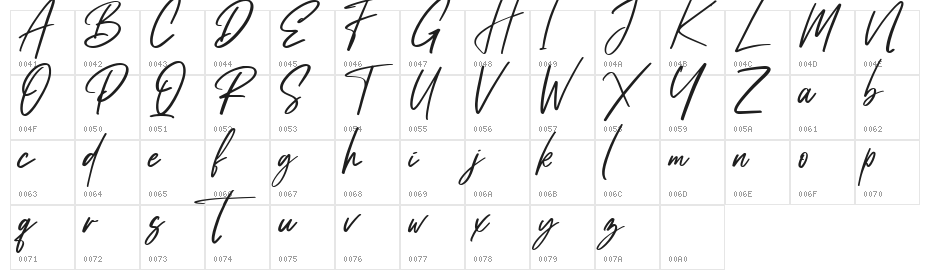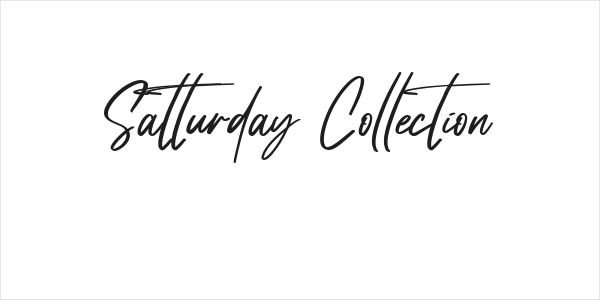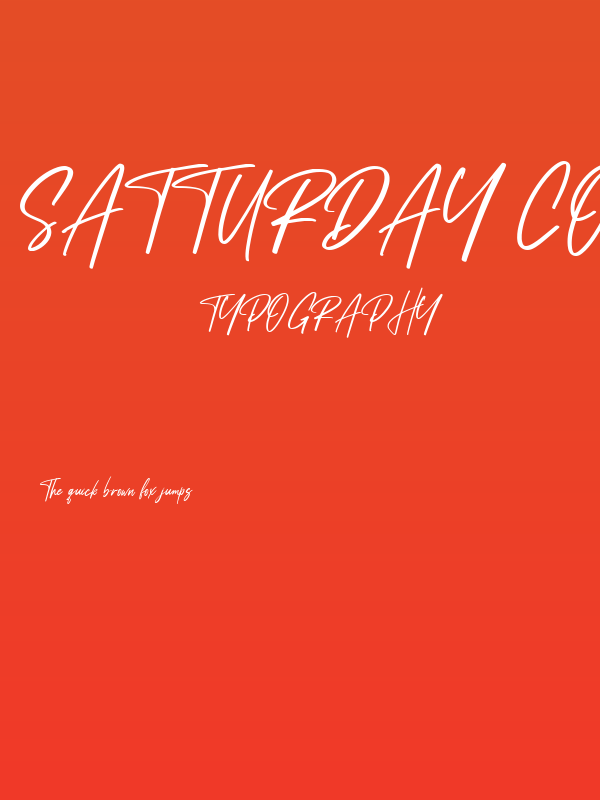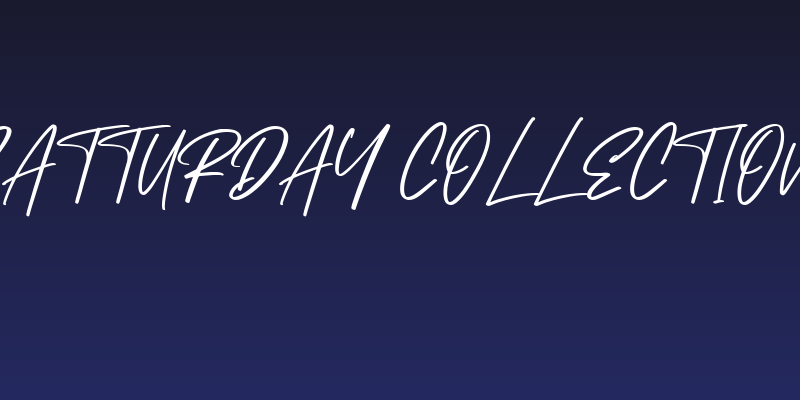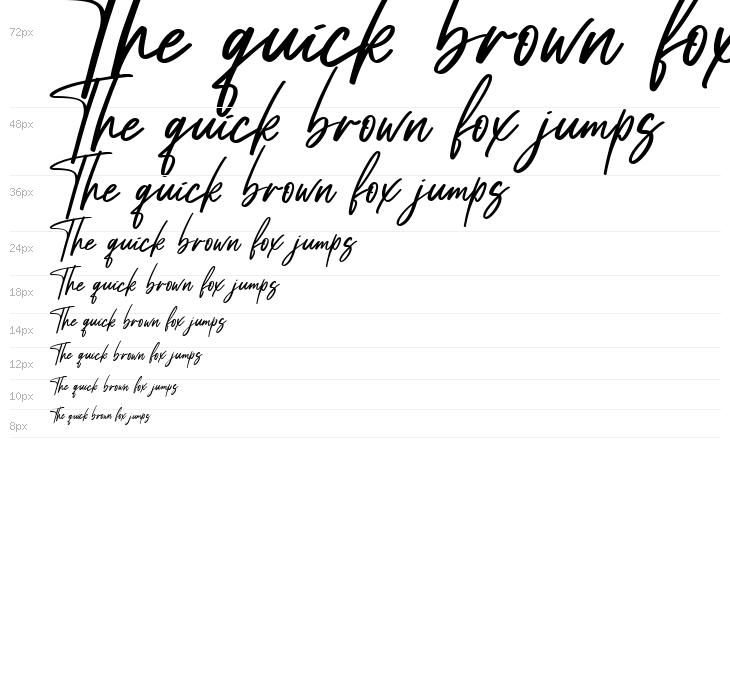
Satturday Collection Font
Satturday Collection Description
This font features a dynamic and expressive handwritten style, characterized by its fluid and cursive letterforms. The uppercase letters are tall and slender, with a slight slant that adds a sense of motion and elegance. The lowercase letters are more compact, maintaining the cursive flow with smooth, connected strokes. The font has a casual yet sophisticated feel, making it versatile for various design applications. The strokes vary in thickness, providing a medium contrast that enhances readability while retaining the artistic flair. Overall, the font exudes a modern and stylish vibe, perfect for creative projects.
| Proposed Projects | Ideal for branding, invitations, greeting cards, and social media graphics. |